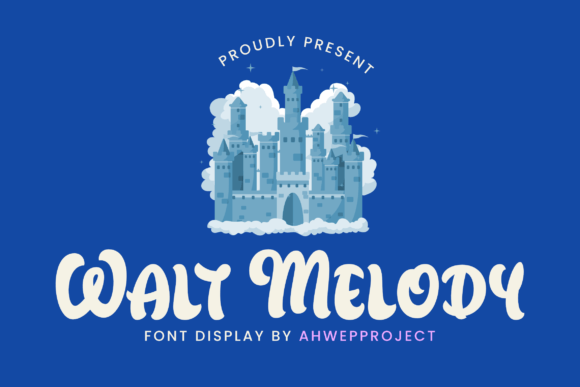
Introducing Walt Melody Font, the ultimate choice for enhancing your iOS app designs! Crafted with utmost precision and inspired by the iconic Walt Disney font, this display font is a captivating masterpiece that will instantly elevate your creative projects to new heights.
With its unique style and eye-catching appeal, Walt Melody Font brings a touch of magic and playfulness to any design. Whether you're creating a captivating logo, designing an engaging user interface, or crafting stunning visuals, this font is guaranteed to make your ideas come alive in the most enchanting way possible.
One of the key features that sets Walt Melody Font apart is its versatility. It effortlessly adapts to various design contexts, allowing you to effortlessly communicate your message with clarity and impact. The font family's display category ensures that your app's content stands out, making it a perfect choice for iOS app design.
But what truly sets Walt Melody Font apart is its PUA encoding. This means that you have complete access to all the unique glyphs and characters within the font. Unleash your creativity and explore a world of endless possibilities as you effortlessly incorporate these captivating elements into your designs.
Imagine the joy and excitement your users will experience as they interact with your app, thanks to the enchanting visuals created with Walt Melody Font. It's not just a font, but a magical tool that adds a touch of whimsy and delight to every user's journey.
Remember, Walt Melody Font isn't just a font; it's the key to unlocking a world of captivating design possibilities. So don't miss out on the chance to create something truly extraordinary. Get ready to immerse yourself in a realm of enchantment and bring your most imaginative ideas to life!